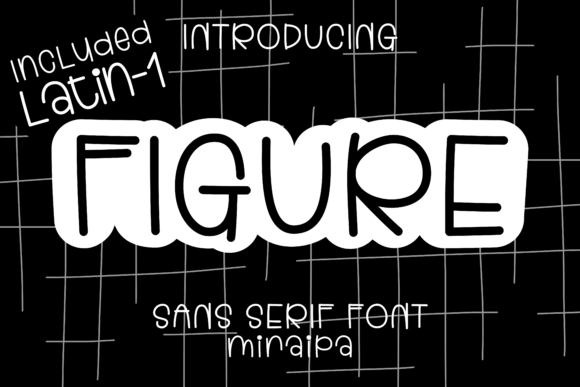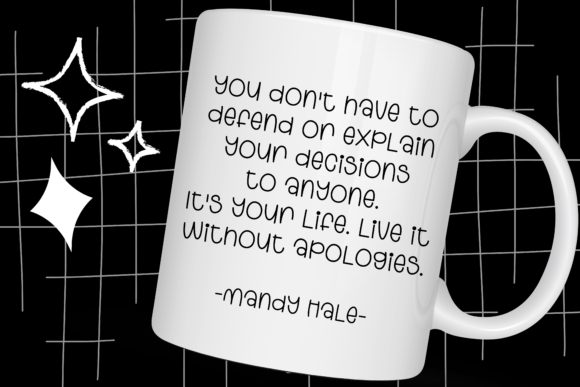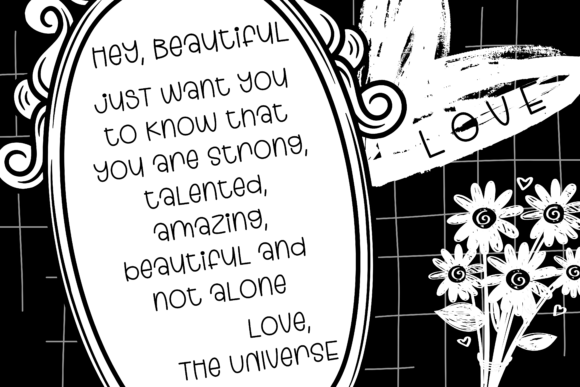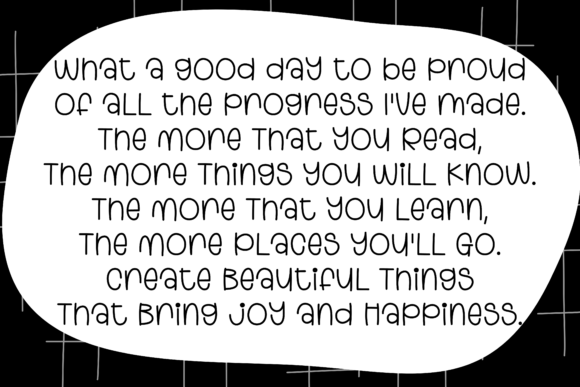
Figure Font: A Playful Handwritten Sans Serif for Cricut & DIY Projects
About the Figure Font
Elevate your designs with Figure Font, a font that combines sophistication with readability. Figure is designed in a playful and friendly handwritten sans serif font style. It would be awesome to your fun projects or diary planner. Let’s try it to your perfect projects such as Easter, back to school, wedding, party decoration, invitations, Fall, Halloween, Christmas, posters, blogs, clothing, child-related designs, greeting cards, social media posts or anything that needs a friendly touch. Add it now to your fonts library, and it will bring any of your DIY projects to life.
Figure Font’s playful hand-drawn style excels in headlines, short text blocks on posters and social media, and branding for businesses targeting a young, approachable audience. It works well for packaging of products aimed at children or those with a lighthearted, fun aesthetic. However, its informal nature makes it unsuitable for body text, long paragraphs, or user interfaces requiring high readability.
Its friendly, approachable personality pairs well with clean sans-serif fonts like Open Sans for body text, providing a strong contrast and balance. For a more sophisticated feel, consider pairing it with a classic serif like Garamond for supporting text, allowing Figure Font to shine in headings and titles. Avoid pairing it with overly ornate or heavily embellished typefaces, as this would clash with its lighthearted character.
Figure Font’s core personality is best described as friendly and approachable, conveying a sense of warmth and playfulness. This makes it ideal for projects requiring a light-hearted, informal tone.
Figure Font Usage Examples
Figure Font Example